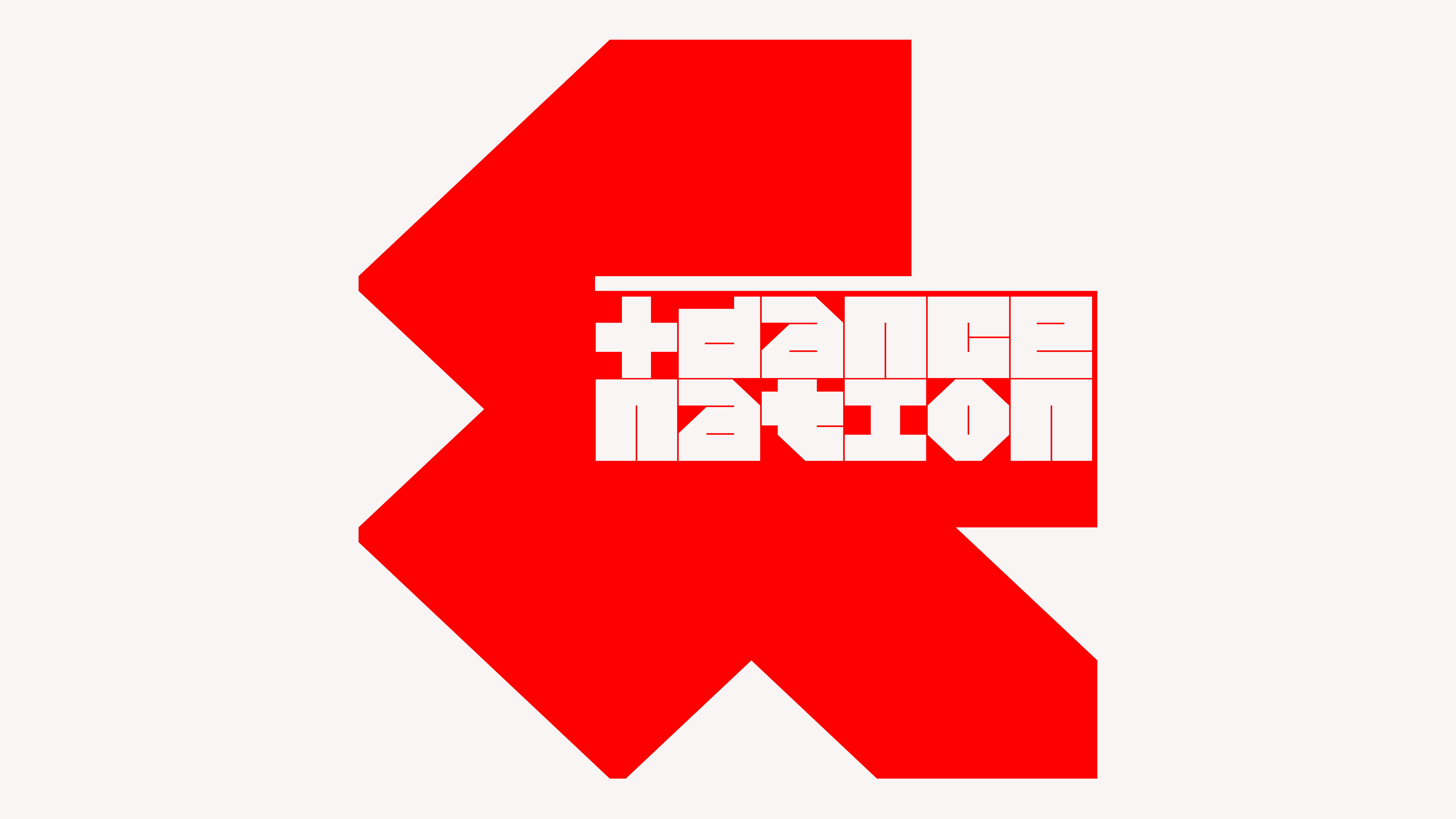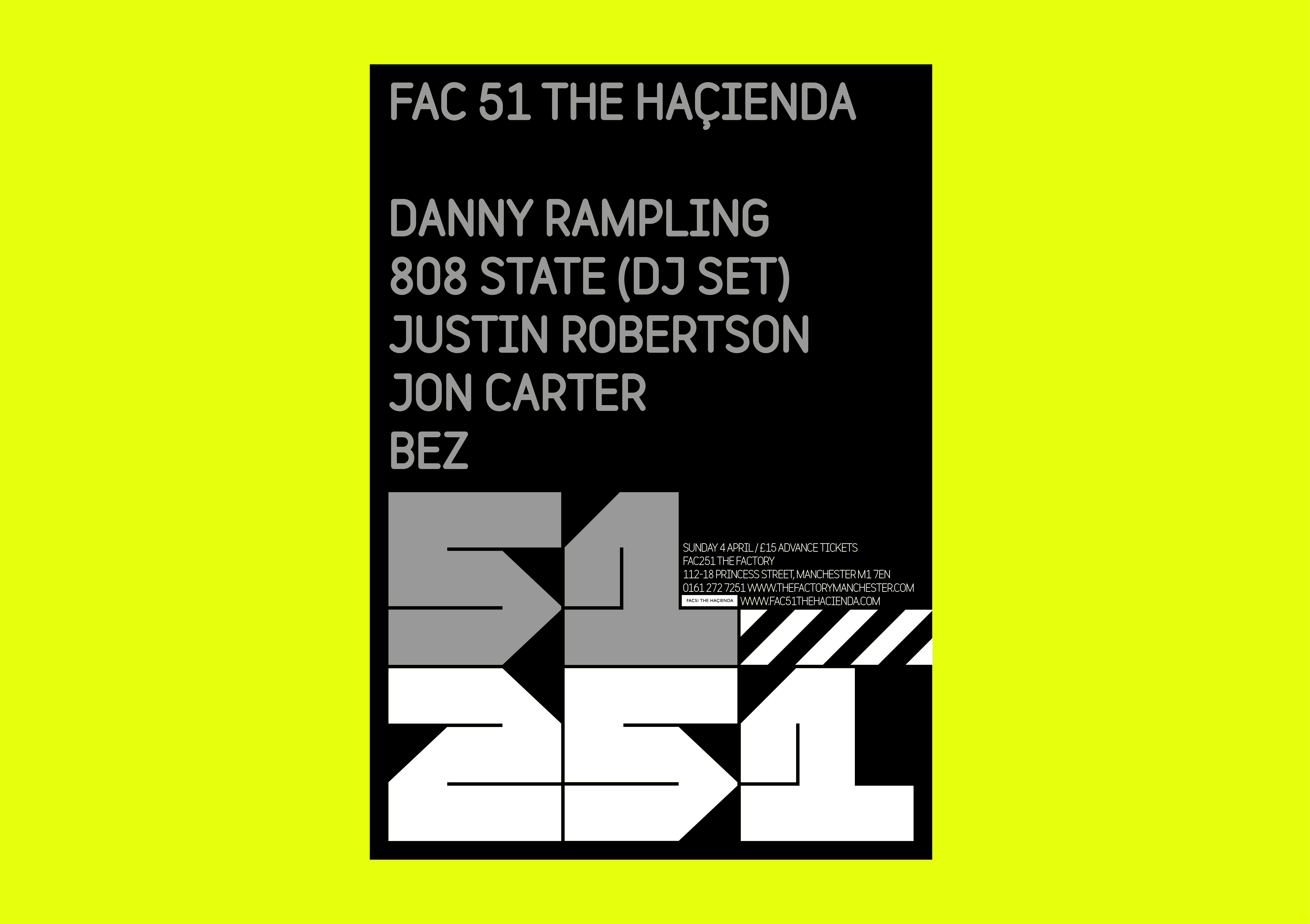
F37 Hac
Taking inspiration from an old Hacienda flyer by Trevor Johnson, F37 Hac’s simple graphic shapes are sure to pack a punch even in a dimly lit club toilet.
This uni-case and mono-spaced font from Haider Muhdi takes letter forms right to their elemental shapes. With not a curved line in sight, the bold angularity of the font is immediately apparent. The compact proportions make F37 Hac perfect for tight leading and compact layouts, while the wafer thin counters ensure maximum impact of the font. Included in the font is an extra boxy Stylistic Set for even more graphic impact, if that is even possible.
F37® × Haider Muhdi
The Designer
Graduated from Lancaster University with first class honours, Haider has collaborated with some of the most prolific design and advertising agencies such as Uncommon Creative Studio, Wolff Olins, Mother Design, Droga5, Landor and R/GA.
Haider maintains a diverse client list with the likes of EA Sports FC, Nike, Virgin, New York Fashion Week, Uber and Fac 51 / The Haçienda to name a few. A conscientious all round designer and typographer with an appetite for brand disruption and a keen eye for art direction. His approach is always based on a strong conceptual vision married with an elegant design solution. His work has won recognition from Cannes Lion, D&AD, RSA and Type Directors Club.
Inspiration